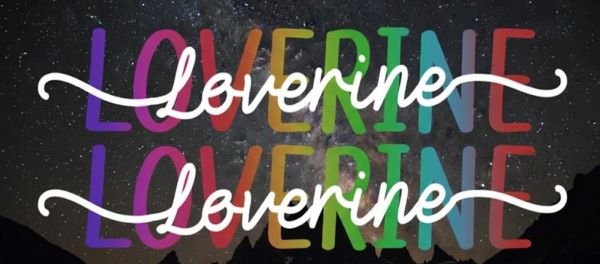
Loverine Font by Viswell Studio is a handwritten script typeface that strikes a compelling balance between romantic expressiveness and modern restraint. Its fluid curves carry a genuine softness that communicates affection and care without ever feeling saccharine.
Love quotes, wedding stationery, Valentine’s designs, feminine brand identities, and heartfelt social media content all find a natural home in this typeface’s gentle, graceful character. Free for personal use, with a commercial license available for purchase.
Style: Handwritten, Script, Romantic, Elegant